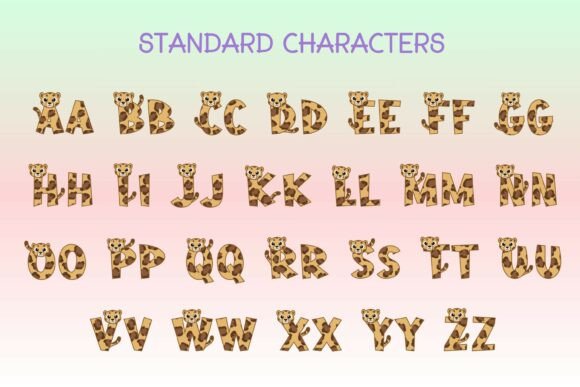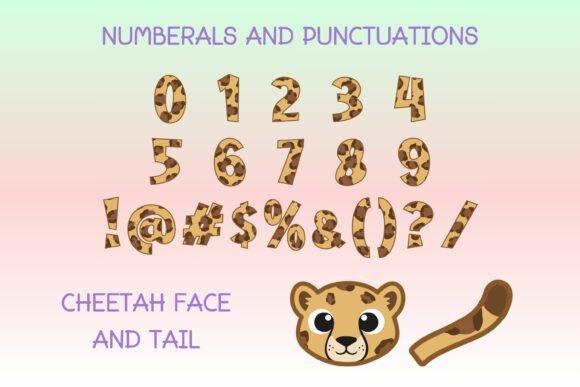
Cheetah Flock Font: Unleash Your Creativity with a Playful Safari-Inspired Typeface
Are you looking for a font that can add a touch of playfulness and personality to your designs? Look no further than the Cheetah Flock font, a vibrant and eye-catching color font that captures the whimsical spirit of the savannah. Inspired by adorable safari vibes, this font is perfect for designers and crafters who want to create fun and engaging designs that stand out from the crowd.
A Font that’s Wild and Whimsical
Cheetah Flock is a bold and blocky typeface that features organic leopard spots and adorable feline faces peeking out from the characters. Each letter is filled with a warm cheetah pattern, and the uppercase characters integrate cute cub details, making this font a true showstopper. The result is a font that’s both playful and charming, perfect for designs that need a little extra personality.
The Cheetah Flock font is versatile and can be used for a wide range of projects, including:
- Children’s apparel: Add a fun and playful touch to your kids’ clothing and accessories with this adorable font.
- Safari-themed birthday invitations: Create eye-catching and engaging invitations that will set the tone for a wild and exciting party.
- Educational posters: Make learning fun with a font that’s both educational and entertaining.
- Nursery brand headers: Stand out from the crowd with a font that’s both playful and sophisticated.
Font Features
The Cheetah Flock font comes with a range of features that make it easy to use and customize, including:
- Full uppercase letters: Perfect for headlines and titles.
- Numerals and punctuation: Complete your designs with a range of numbers and special characters.
- Bonus cheetah graphics: Add an extra touch of whimsy to your designs with these fun and playful graphics.
Pairing Suggestions
To get the most out of the Cheetah Flock font, try pairing it with simple sans-serifs to let the animal patterns truly pop. This will create a striking contrast that’s both visually appealing and easy to read. Alternatively, use the Cheetah Flock font as a standalone header to add a touch of personality and whimsy to your designs.
Why Choose the Cheetah Flock Font?
So why choose the Cheetah Flock font for your next project? Here are just a few reasons:
- Unique and eye-catching design: This font is sure to grab attention and make your designs stand out.
- Playful and charming personality: Add a touch of whimsy and fun to your designs with this adorable font.
- Versatile and easy to use: Perfect for a wide range of projects, from children’s apparel to educational posters.
In conclusion, the Cheetah Flock font is a playful and eye-catching typeface that’s perfect for designers and crafters who want to add a touch of personality and whimsy to their designs. With its bold and blocky letterforms, organic leopard spots, and adorable feline faces, this font is sure to grab attention and make your designs stand out. So why not give it a try and see how it can unleash your creativity and take your designs to the next level?